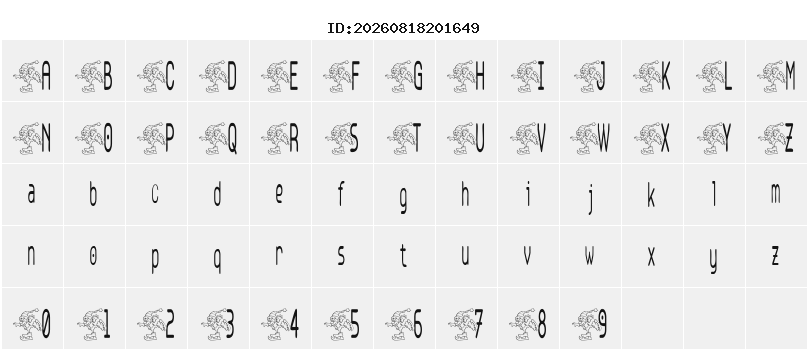
SkatingElf Preview
• Font Name: SkatingElf
• Font ID: Perry Mason SkatingElf
• Full Font Name: SkatingElf
• Version: Perry Mason 10 Dec 01
• PostScript Name: SkatingElf
• Character Count: 99
• Copyright: Perry Mason Newcastle Aust
About SkatingElf.ttf
SkatingElf.ttf is a modern, elegant sans-serif font designed for ultimate readability and visual harmony. Perfect for branding, headlines, web design, and print materials.